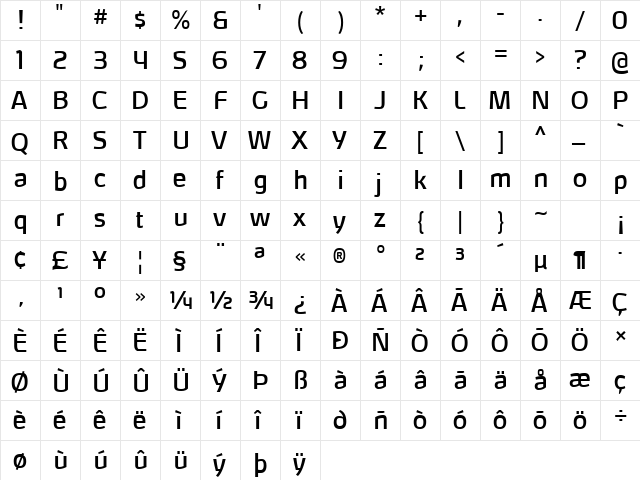
Hybrea Regular
Design Context for Hybrea Typeface
Hybrea offers clean, dependable letterforms without strong stylistic allegiance, making it a practical choice for designers who need flexibility.